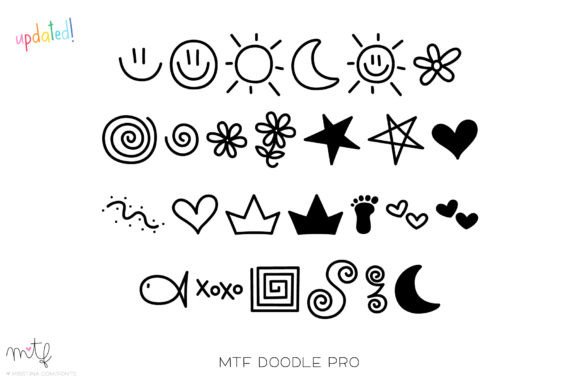
Doodle Font: The Ultimate Symbol of Happiness and Positivity
Are you tired of using the same old boring fonts in your designs? Do you want to add a touch of whimsy and playfulness to your creations? Look no further than the Doodle Font, a jovial dingbats font that is bursting with happiness and positivity. In this article, we’ll dive into the world of Doodle Font and explore its features, uses, and benefits for designers and crafters.
What is Doodle Font?
Doodle Font is a unique and charming dingbats font that is packed with a wide range of delightful symbols and icons. From the sun and fluffy clouds to cute fish and smiley faces, this font has everything you need to express happiness and spread love and good vibes into the world. With its playful and carefree design, Doodle Font is the perfect choice for designers and crafters who want to add a touch of whimsy to their creations.
Features of Doodle Font
So, what makes Doodle Font so special? Here are just a few of its key features:
- Wide range of symbols and icons: Doodle Font comes with a vast array of symbols and icons, including the sun, moon, stars, flowers, and many more.
- Playful and carefree design: The font’s playful and carefree design makes it perfect for creating fun and engaging designs.
- Versatile: Doodle Font can be used for a wide range of projects, from greeting cards and invitations to social media graphics and website designs.
Uses of Doodle Font
Doodle Font is a versatile font that can be used for a wide range of projects, including:
- Greeting cards and invitations: Add a touch of whimsy to your greeting cards and invitations with Doodle Font’s playful symbols and icons.
- Social media graphics: Use Doodle Font to create fun and engaging social media graphics that are sure to grab attention.
- Website designs: Add a playful touch to your website designs with Doodle Font’s charming symbols and icons.
- Crafting projects: Doodle Font is perfect for crafters who want to add a personal touch to their projects, such as scrapbooking, journaling, and card making.
Benefits of Using Doodle Font
So, why should you use Doodle Font in your designs? Here are just a few benefits:
- Adds a touch of whimsy: Doodle Font adds a touch of whimsy and playfulness to your designs, making them more engaging and fun.
- Conveys happiness and positivity: The font’s happy and uplifting symbols and icons convey a sense of happiness and positivity, making it perfect for designs that aim to inspire and uplift.
- Versatile: Doodle Font can be used for a wide range of projects, making it a great addition to any designer’s or crafter’s toolkit.
Tips for Using Doodle Font
Here are a few tips for using Doodle Font in your designs:
- Use it sparingly: While Doodle Font is playful and fun, it can be overwhelming if used too much. Use it sparingly to add a touch of whimsy to your designs.
- Experiment with different colors: Doodle Font looks great in a variety of colors, so don’t be afraid to experiment and find the perfect color scheme for your design.
- Combine it with other fonts: Doodle Font can be combined with other fonts to create a unique and interesting design.
In conclusion, Doodle Font is a unique and charming dingbats font that is bursting with happiness and positivity. With its wide range of symbols and icons, playful design, and ease of use, it’s the perfect choice for designers and crafters who want to add a touch of whimsy to their creations. Whether you’re creating greeting cards, social media graphics, or website designs, Doodle Font is sure to bring a smile to your face and spread love and good vibes into the world!